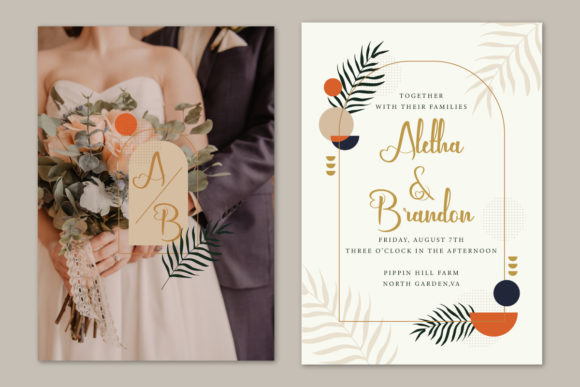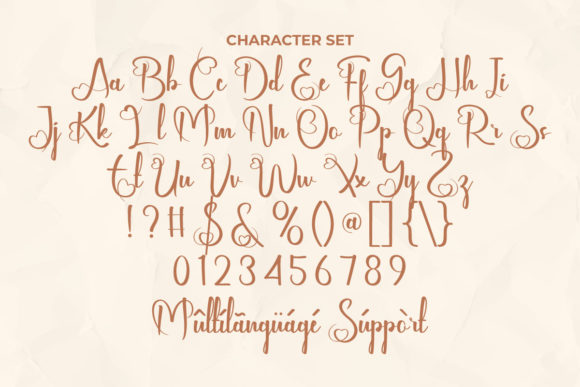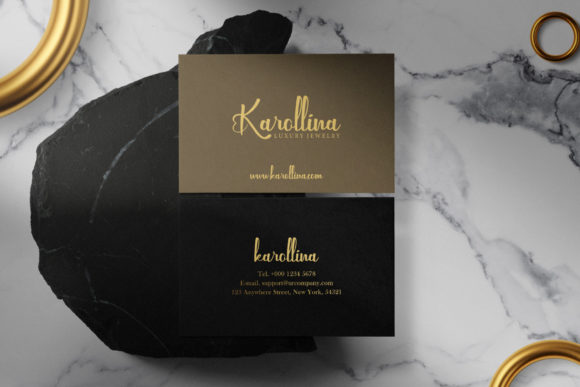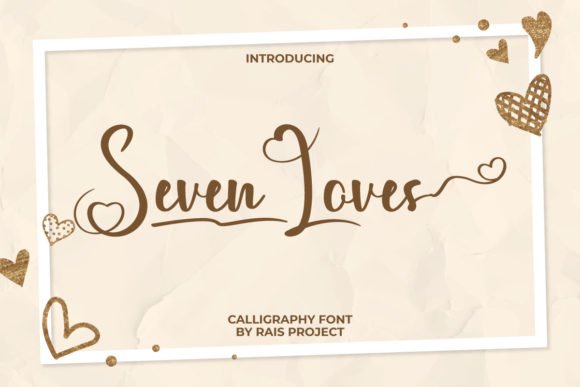
Introduction to Seven Loves Font
Seven Loves is a beautiful and lovely script font with unique swashes and ligatures.
It has a classy, elegant and modern look that can be used for business card, fashion brand, florist, headline, label, logos, quotes, stationery, wedding designs and much more This font is PUA encoded which means you can access all of the glyphs and swashes with ease.
Key Features of Seven Loves Font